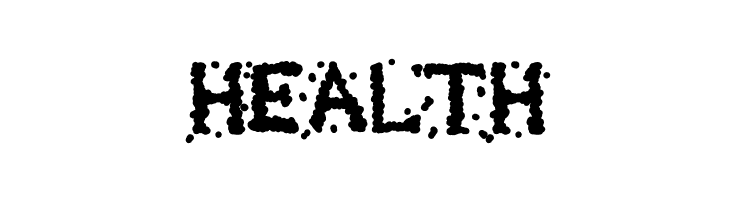
( memesbruh03 - Aaron D. Chand )
( Character )
A decorative font with vintage geometric patterns and bold lines.
( Dani Foster Herring - dani3d.com/ )
Celestial-themed decorative dingbat font with sun, moon, and star icons.
( Douglas Day )
An ornate, Victorian-style decorative font with intricate details.
( Font Monkey - www.fontmonkey.com )
A bold, textured font with a playful, handcrafted appearance.
( FontSpace - www.fontspace.com )
A playful, handwritten font with decorative star elements.
( HPTypework )
An elegant script font with graceful, flowing strokes and a sophisticated style.
( Mattyhex - www.mattyhex.net/cmr/ )
A whimsical, hand-drawn font with playful curves and sharp edges.
( Ouripedes Gallene )
A dynamic, brush-style font with medium contrast and a handwritten feel.
( Ouripedes Gallene )
A dynamic, brush-style font with sharp, angular strokes and a cursive flair.